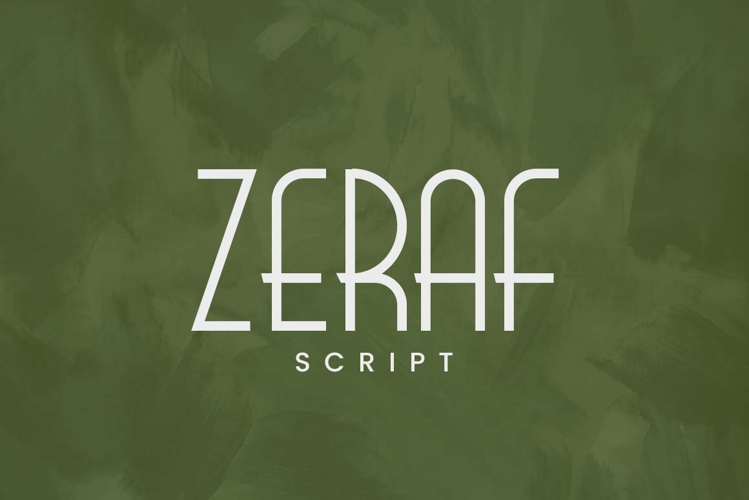
Zeraf Script Modern Elegant Display Font
Zeraf Script modern display font for elegant branding.
Get incredible value with Zeraf Script, a modern display font designed for impactful branding. This multi-purpose typeface works beautifully across business cards, packaging, and digital marketing materials. With its unique character shapes and professional finish, it is the ultimate tool for designers and startups.
Give your brand a voice that stands out with Zeraf Script, a modern display font engineered for creators who demand professional excellence. Melding unique character shapes with a polished finish, Zeraf Script is more than just a typeface—it’s a versatile design asset built for startups and seasoned designers alike.
Zeraf Font Information
- Zeraf Font is a stylish hand made Font, Available in
- Zeraf Regular -Zeraf Bold -Zeraf Black
- 3 in one version with all special characters.
Suitable for…
- Magazine design
- Cover design
- Flyer design
- Display font
- Web site Slider Font
- Hade line font
- Regular font
- Product name
- Etc.